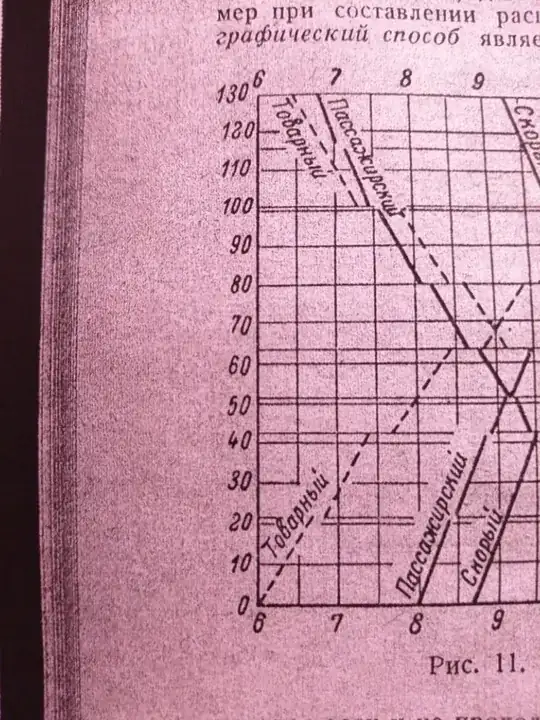
2if that's a typeset book the exact font may not be available digitally or may not be free, what particular font features are you looking for and which of the fonts shown, the main upright body font on line 1, the italic on line 2 or the sans serif used in the diagonal labels? – David Carlisle Nov 13 '21 at 09:47
I need side number's font. It similar to sans serif, but there is no exact style of '1', '2' and '3' in the internet, I could find. This book was written in LaTeX, so it should be available. – Владислав Сушинцев Nov 13 '21 at 10:06
you should put that in the question! are you sure the graphs were made with latex not imported as image? – David Carlisle Nov 13 '21 at 10:11
3the numbers on the labels are weird almost hand drawn, the 8 in 80 on the left has a very small top bowl and doesn't match the 8 at the top, I don't think the very stylised 2 in 120 on the left matches the 20 lower down either, the 8 at the bottom is not the same as the one at the top..... I suspect these are hand drawn. – David Carlisle Nov 13 '21 at 10:16
Just looking at the various zeroes, they all differ slightly … Hand-drawn it is IMO. – Ingmar Nov 13 '21 at 11:32
While this particular example does indeed seem hand-drawn, the font clearly tries to resemble some variant of ISO 3098 / ГОСТ 2.304-81 font. If I correctly remember my secondary school classes of technical drawing (черчение), this is the font that was recommended (or even required) for all technical drawings in Soviet Union and probably still is in Russia, so nothing strange that you see it on that plot. (We were even taught to properly draw these letters!)
After some googling, I found another TeX.SE question that discusses this font: Technical drawing in LaTeX, which in turn refers to osifont project. You will probably need to set it to italic:
1Hand-drawn for sure. In the U.S., a not-so-skilled draftsman would have used a Leroy set (the accepted style in the U.S.), but an experienced draftsman could get away with labeling a plot by hand. (My summer job as an undergraduate was drafting wind tunnel plots. B.C. -- Before Computers.) – barbara beeton Nov 13 '21 at 18:43
The figure appears to be hand drawn (or at least the labels hand written)
The 8 in 80 on the left has a very small top bowl and doesn't match the 8 at the top, I don't think the very stylised 2 in 120 on the left matches the 20 lower down either, the 8 at the bottom is not the same as the one at the top